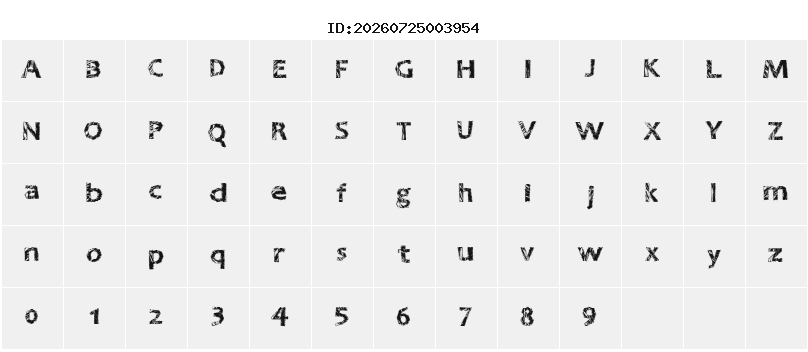
• Font Name: GreatNineties
• Designer: Xerographer Fonts Max Infeld
• Manufacturer: Xerographer Fonts
• Description: Made at Xerographer Studios in Ojai,CA
GreatNineties.ttf is a modern, elegant sans-serif font designed for ultimate readability and visual harmony. Perfect for branding, headlines, web design, and print materials.